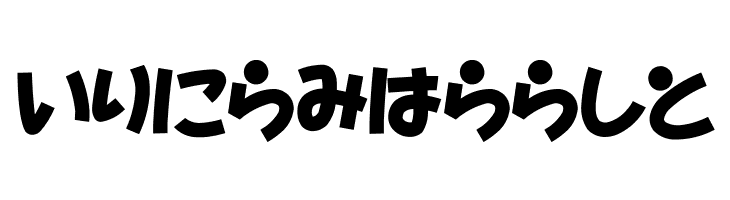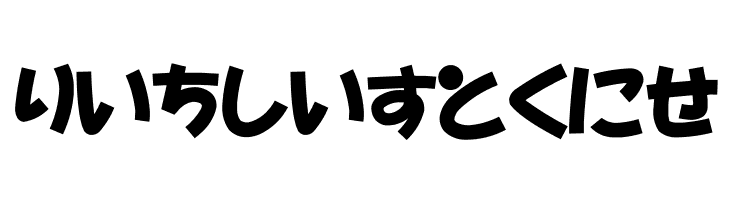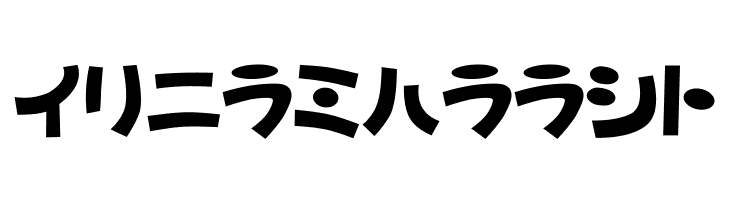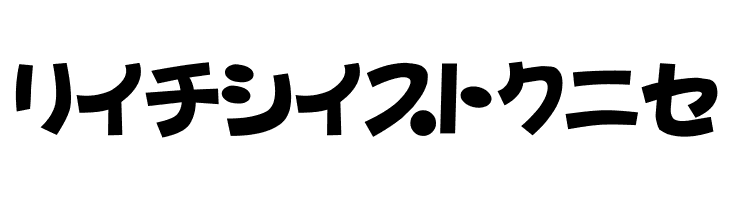
A bold, comic-inspired font with rounded strokes and playful style.
An illustrative, pictorial font with each character as a unique drawing.
A bold, futuristic font with angular lines and a dynamic slant.
A playful, decorative font with circular embellishments and consistent stroke thickness.
A decorative set of characters resembling stylized faces within cloud-like borders.
Whimsical dingbat font with cyclops and monster illustrations.
A bold, decorative font with playful illustrations on each character.
A bold, textured font with a vintage, distressed style.
A bold, geometric font with sharp edges and modern design elements.
A bold, 3D italic font with a dynamic and edgy graffiti-like style.
A bold, 3D font with a playful and dynamic style.
A bold, distressed, and condensed font with a grungy, graffiti-like style.
A bold, distressed, and condensed italic font with a grunge texture.
A bold, distressed font with a grunge aesthetic and jagged edges.
A bold, textured, expanded italic font with a dynamic and distressed style.
A bold, distressed italic font with jagged edges and a dynamic slant.
A bold, distressed font with a rugged, grunge aesthetic.
A bold, edgy font with jagged, distressed strokes and a rebellious vibe.
A bold, distressed font with a hand-drawn, energetic style.
A playful, bold font with rounded, dynamic letterforms.
A playful and bold font with rounded, thick strokes and a whimsical style.
A playful and bold font with rounded, exaggerated forms.
A casual, handwritten-style font with fluid, slightly slanted characters.
A whimsical set of pictogram characters with expressive designs.
A versatile set of clear and simple pictograms for public and transportation use.
A bold, geometric font with sharp angles and a modern aesthetic.
Abstract, grid-based display font with experimental, chaotic forms.
A bold, geometric font with a unique grid overlay, offering a modern and structured aesthetic.
A playful, pictogram-style display font inspired by prehistoric and avant-garde art.
An artistic and decorative font with intricate illustrations in each character.
Whimsical font with human figures and symbolic head icons.
A bold, geometric font with a modern, digital aesthetic.